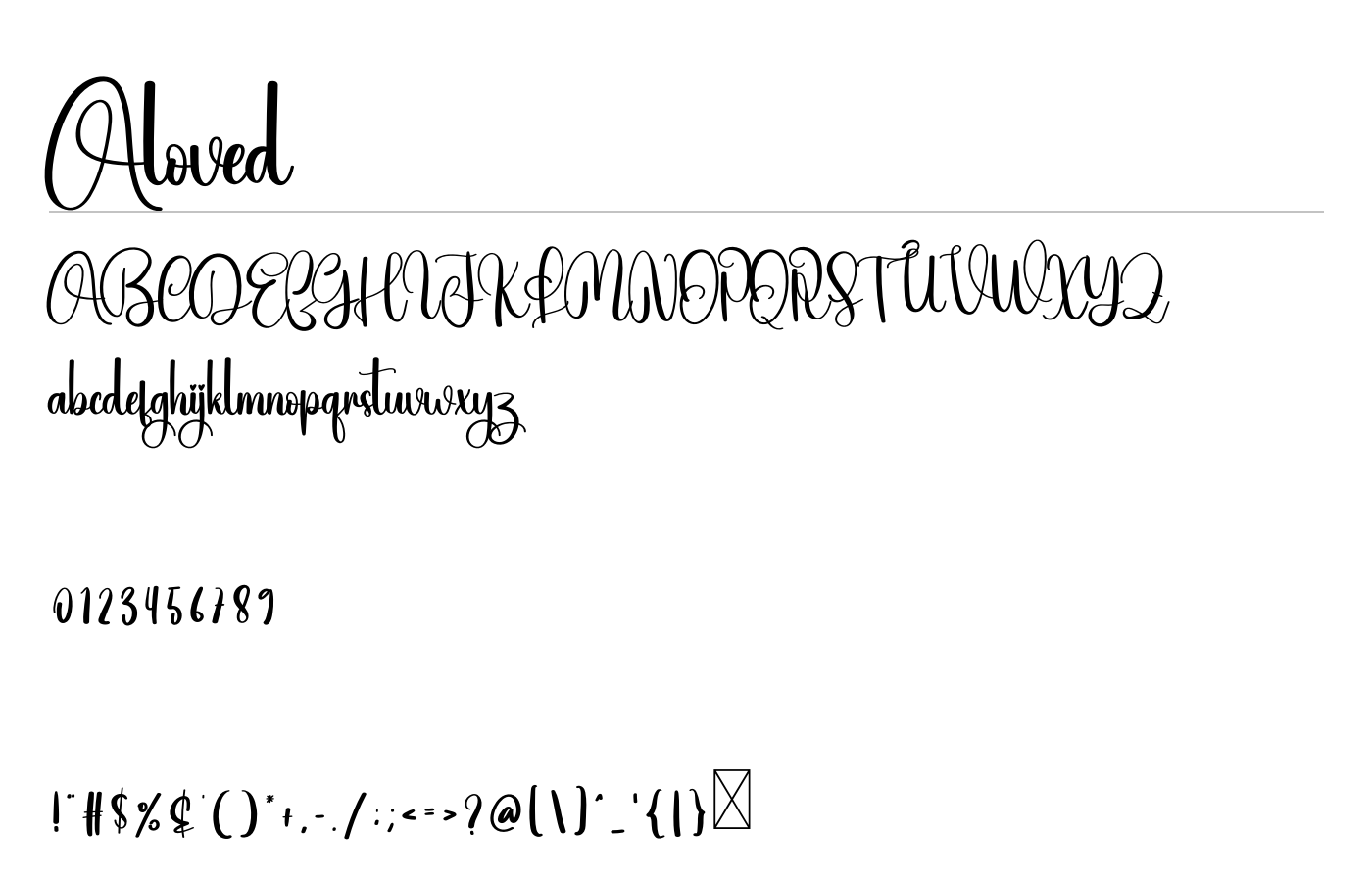
Aloved is an elegant, narrow script font with a handcrafted feel, featuring delicate, flowing strokes and charming loops that convey a romantic and whimsical vibe. Its refined, light weight and tall x-height make it perfect for invitations, branding, and projects seeking a stylish yet approachable look. This font works beautifully for fashion, wedding designs, and logos where a graceful, personalized touch is desired.
Aloved Font
About Aloved Font